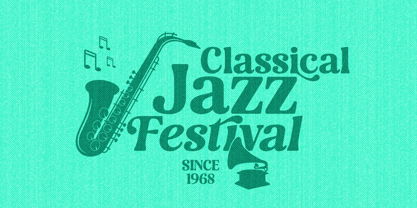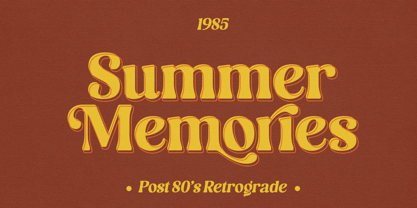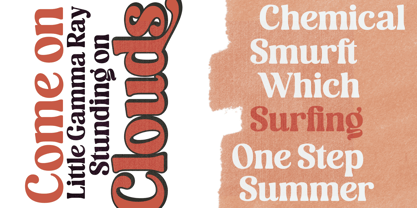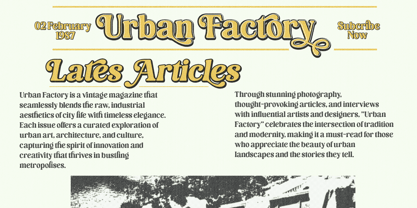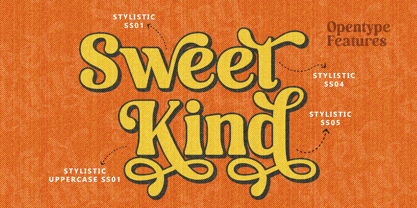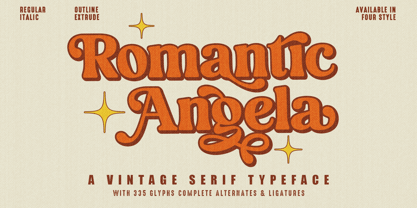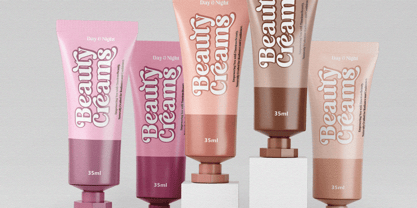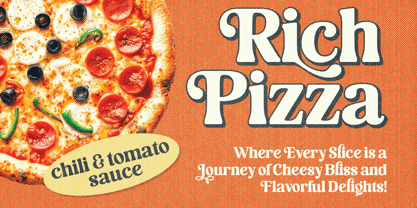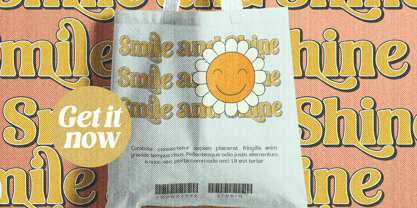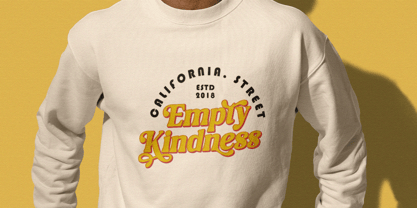
Romantic Angela
by Mega Type
The Romantic Angela Font Family was designed by M Akmal and published by Mega Type. Romantic Angela contains 8 styles and family package options.
Romantic Angela is a versatile, stylish, and fun retro display serif font. Romantic Angela comes in 4 styles, regular, extrude, outline, and shadow, with italics in each style. Mix each style for the perfect result.
Romantic Angela is very perfect for any design you create such as covers, branding, logos, posters, quotes, product packaging, greeting cards, headlines, merchandise, social media, and more!
Add this Romantic Angela font to any of your creative projects, and it will give a retro and vintage feel.